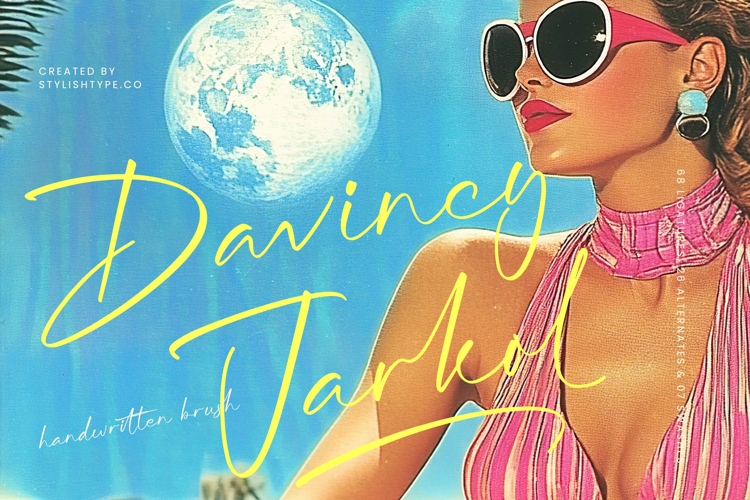
Davincy Jarkol - Handwritten Brush
Elevate your creative vision with the unparalleled elegance of Davincy Jarkol - Handwritten Brush, a typeface that perfectly captures the essence of organic sophistication. This font features expressive strokes and fluid movements, making it an essential tool for designers seeking an authentic aesthetic. Its delicate brush texture provides a high-end feel that transforms standard text into a visual masterpiece, ensuring your brand stands out with a distinctive and modern calligraphy charm.
Unlock limitless possibilities in high-end design as Davincy Jarkol - Handwritten Brush serves as the perfect centerpiece for luxury branding and premium packaging. It is perfectly suited for fashion editorials, lifestyle magazines, and bespoke wedding stationery where a touch is paramount. With its inclusion of 68 ligatures, 26 alternates, and 7 swashes, this font offers creative flexibility that allows you to customize every layout for a unique visual identity.